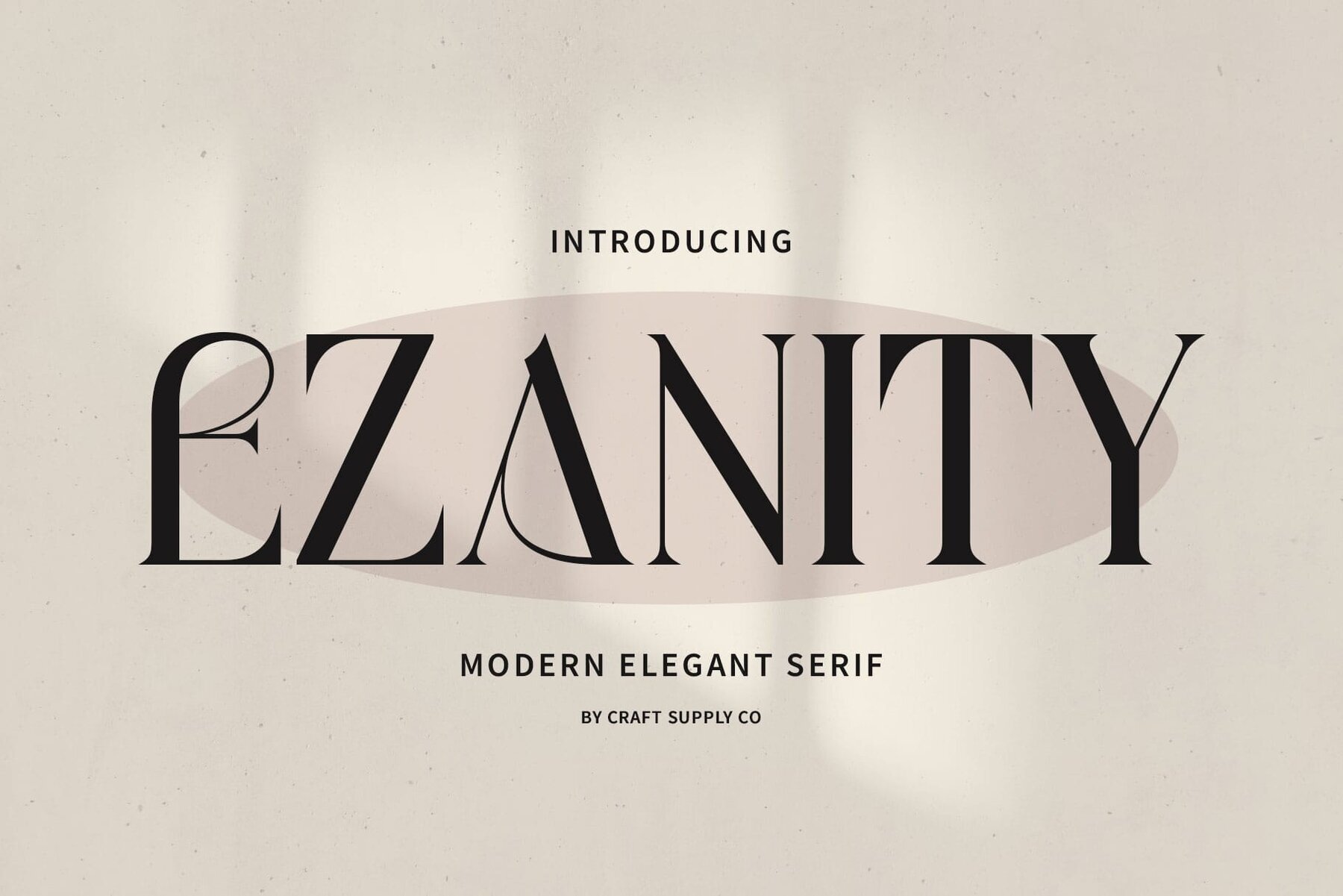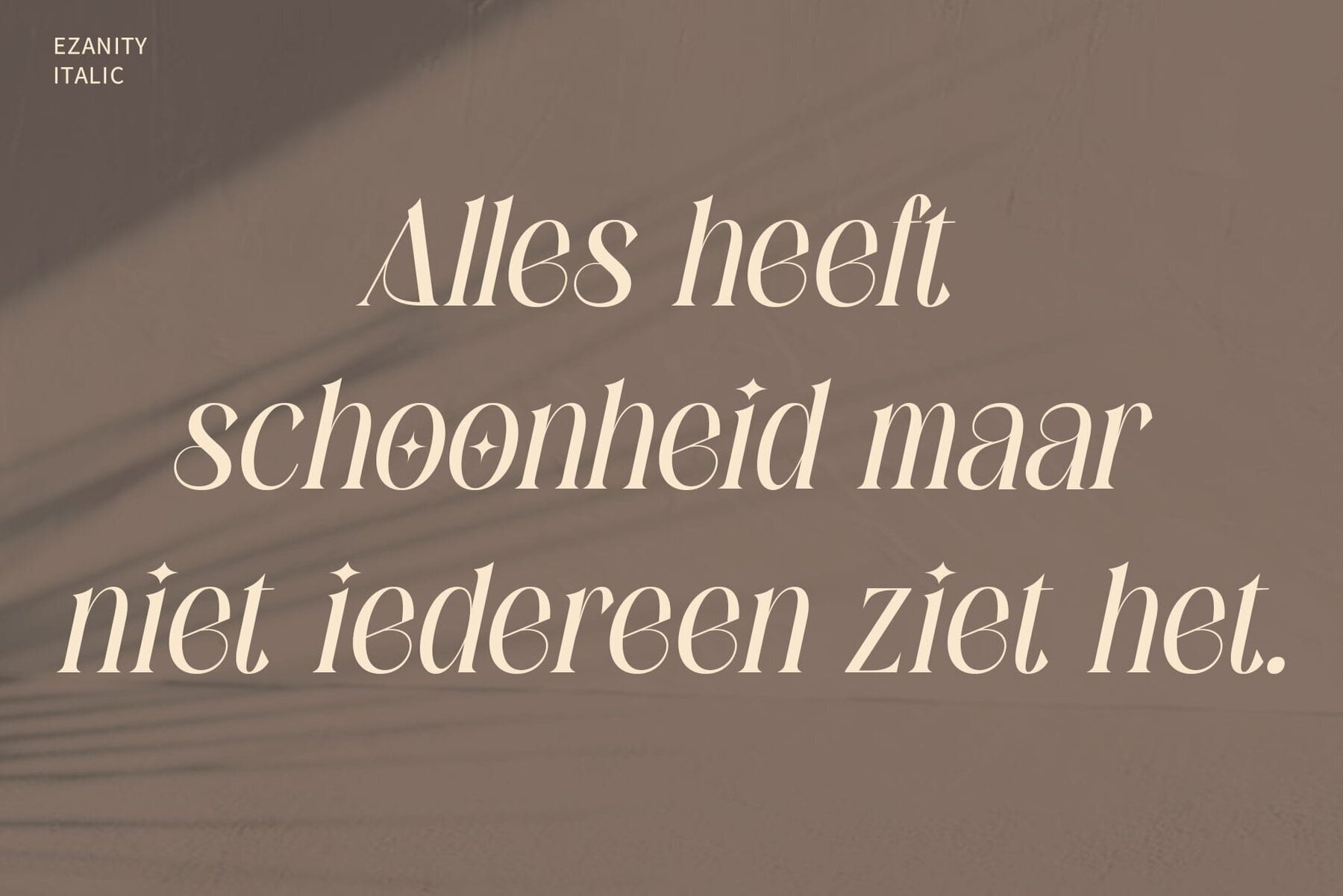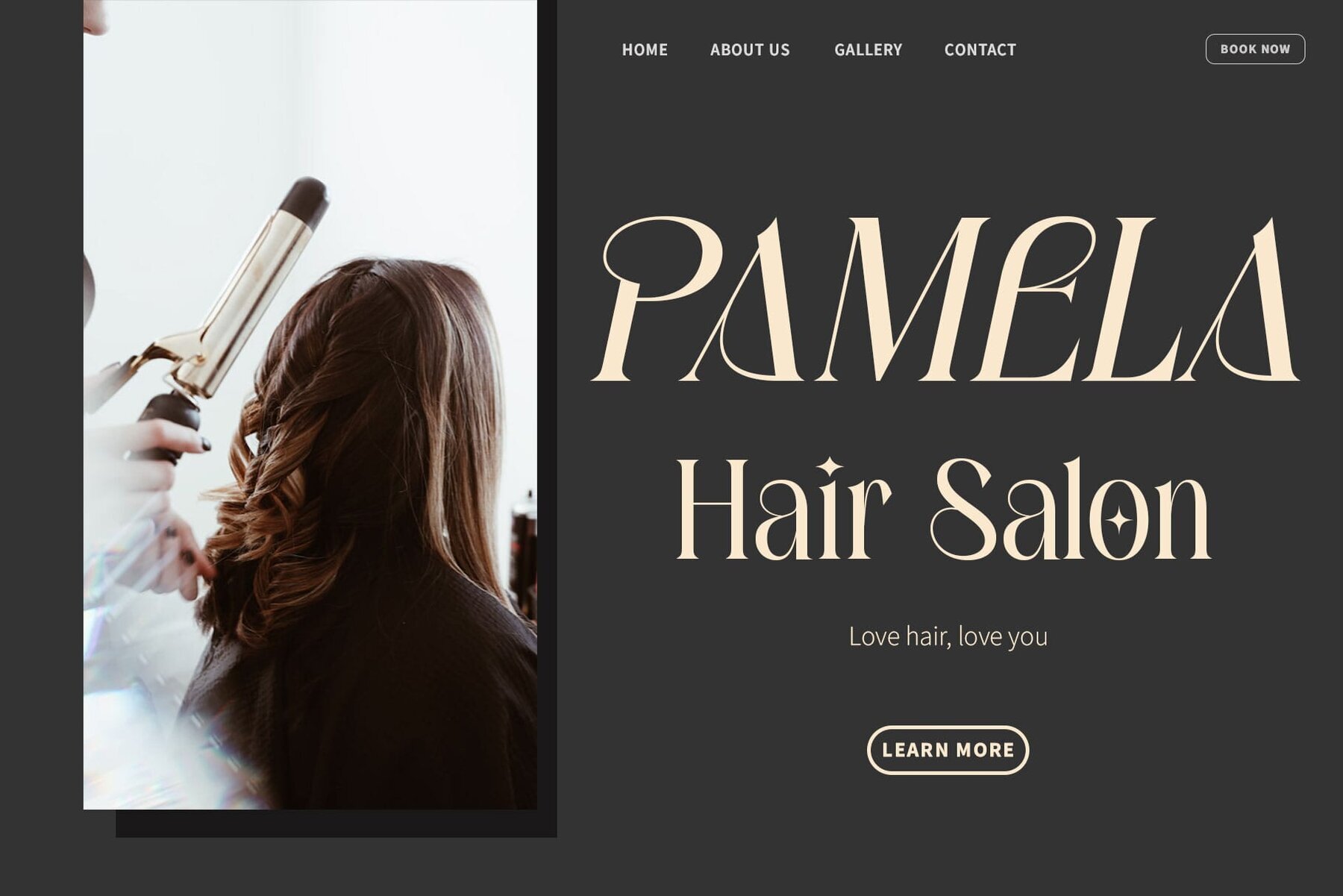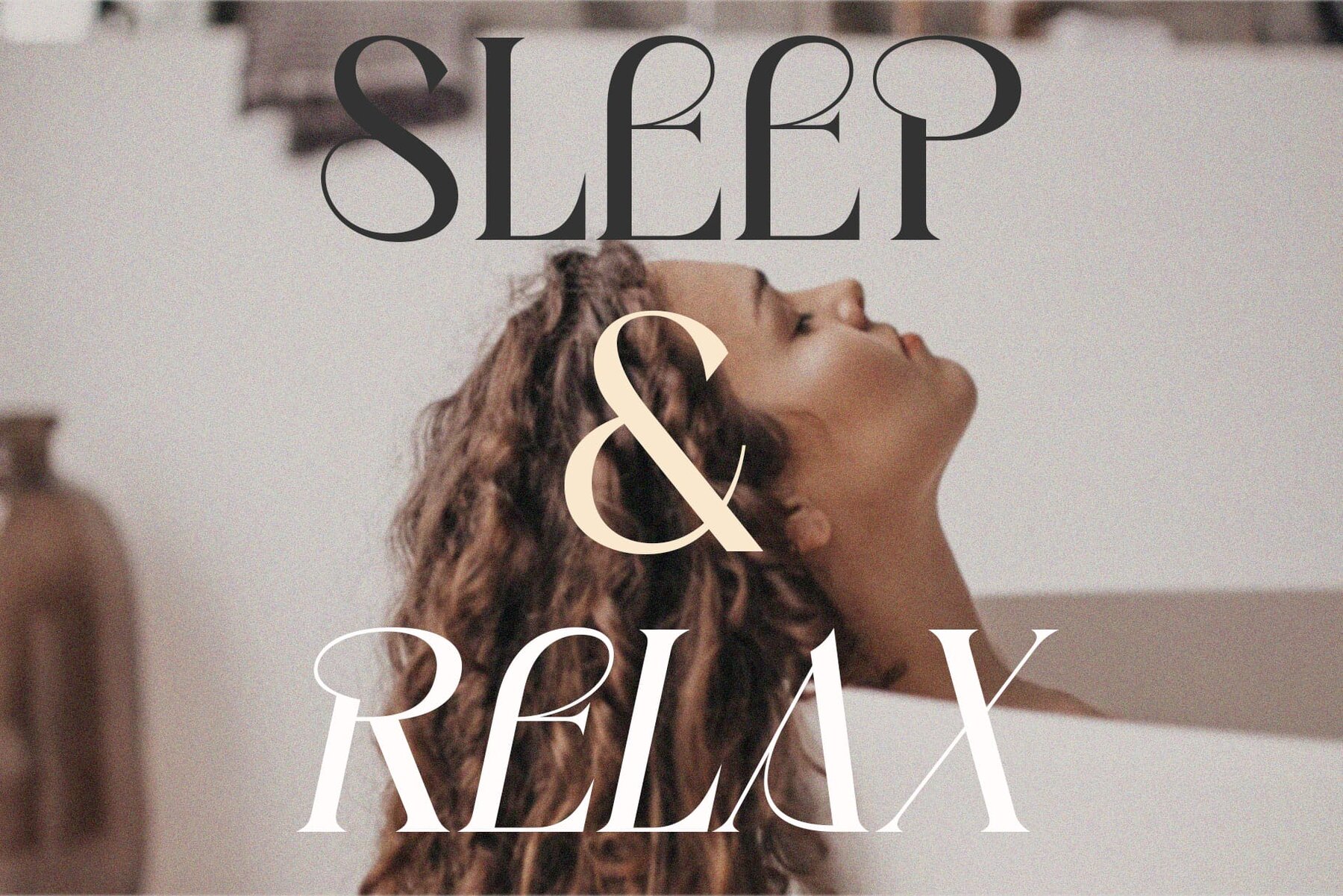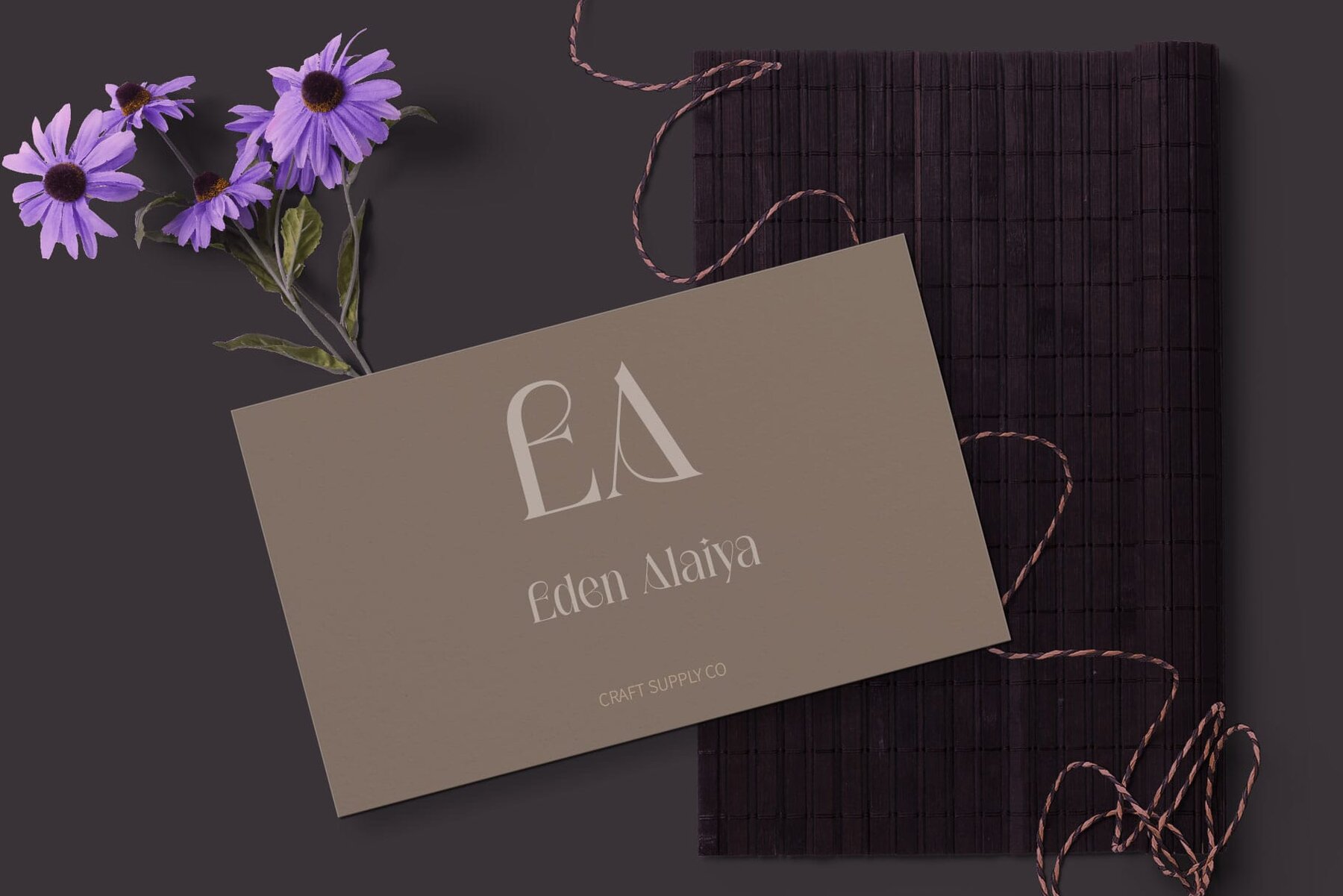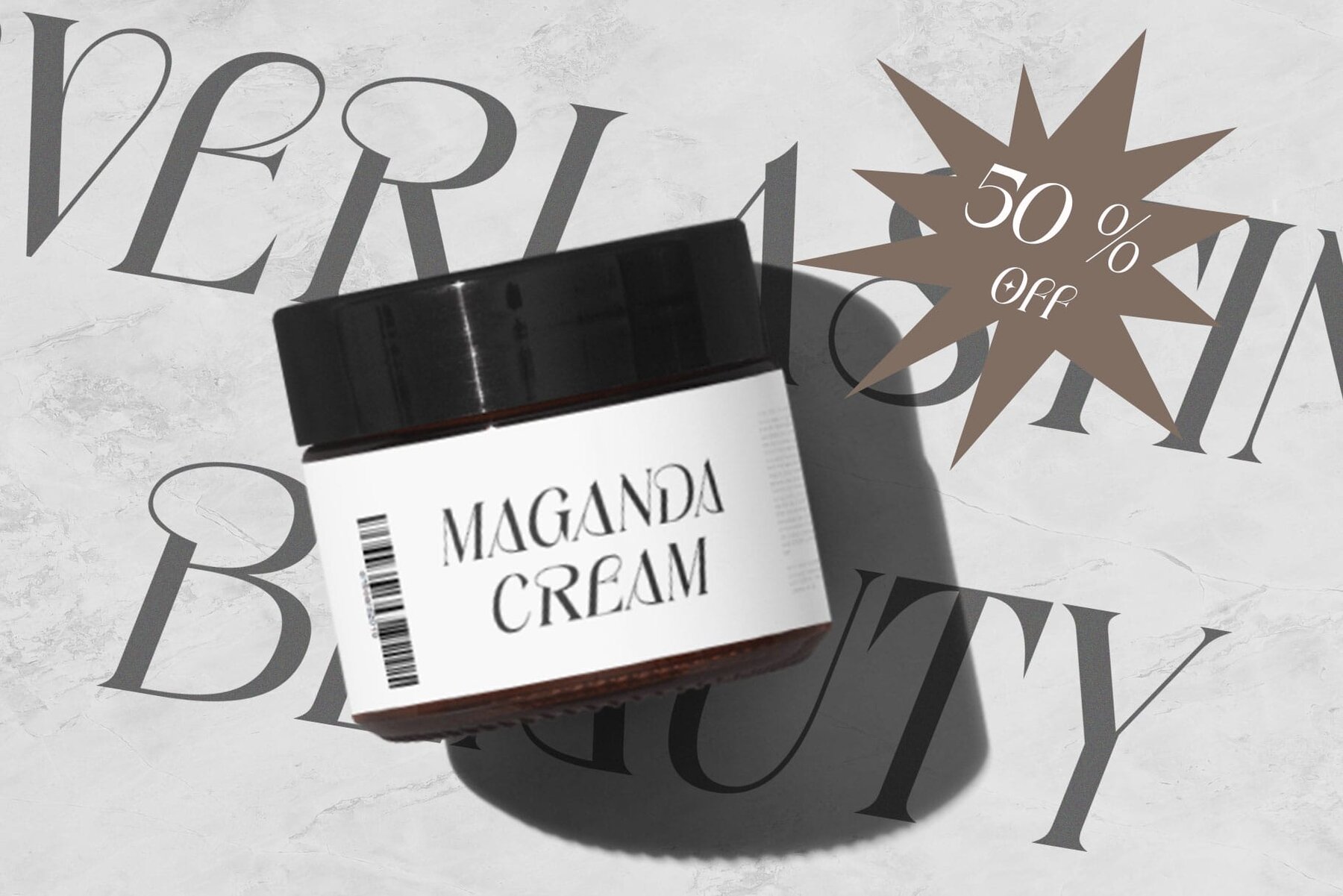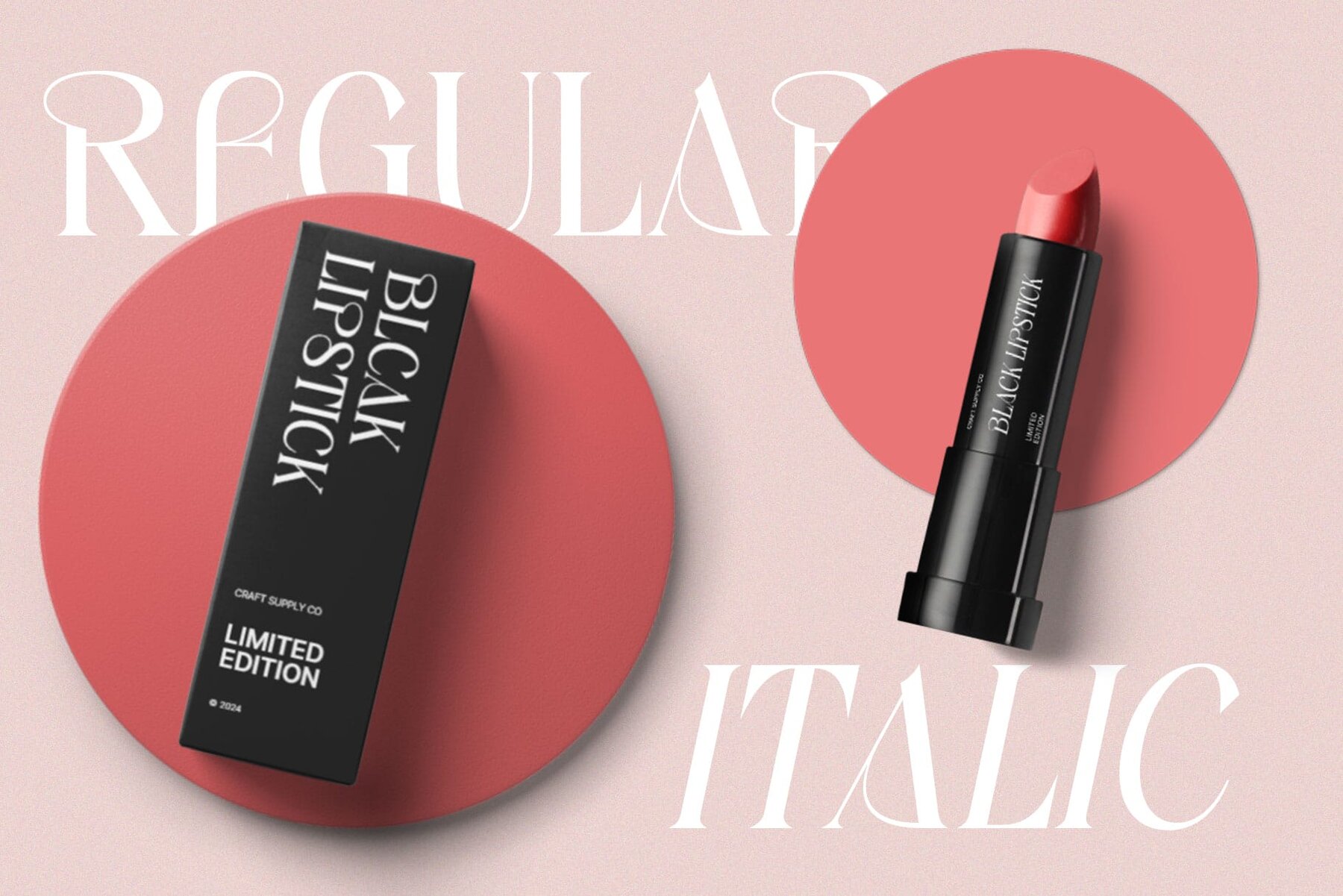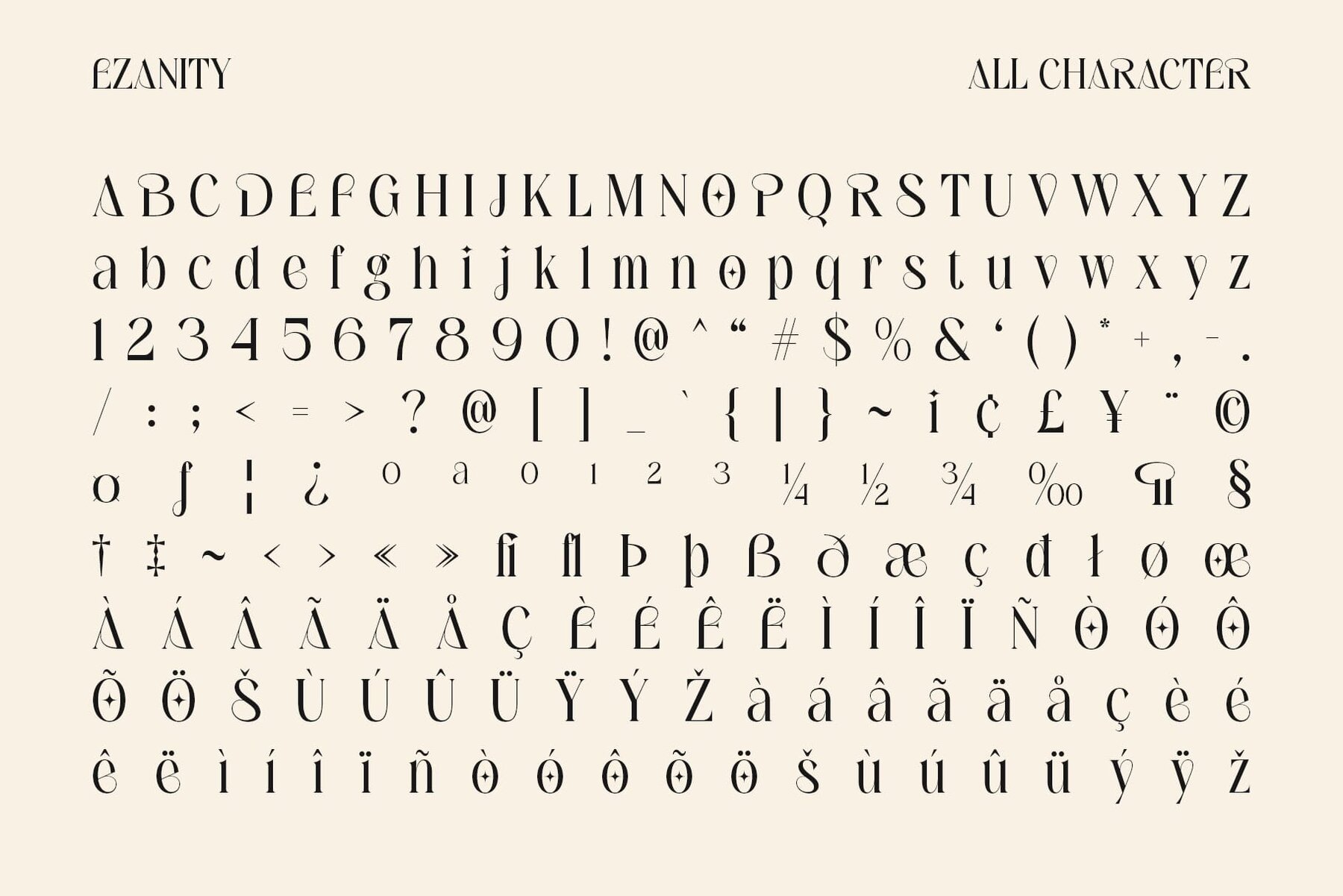
Ezanity Font
Ezanity is a serif font with a distinctive design, characterized by elegant vibes and intricate flows. Each letter exudes individuality, making it perfect for display purposes. Radiating an air of elegance, Ezanity captivates with its graceful curves and refined details. Its sophisticated demeanor elevates any display project, adding a touch of class and luxury. Tailored for display applications, Ezanity excels in various contexts, from branding to editorial design. Its distinctive shape and elegant aura ensure maximum impact and visual appeal. Beyond its aesthetic charm, Ezanity offers versatility and engagement. Whether used in print or digital media, its unique design elements capture attention and leave a lasting impression. Ezanity stands out as a symbol of unmatched elegance in serif typography. Its unique design features offer a versatile solution for display needs, leaving a lasting impression with its sophistication and charm. Step into the world of Ezanity and elevate your designs with its timeless allure. You can use this typeface without needing any specialized software. If you have any inquiries or need assistance, please feel free to contact us. We appreciate your support in enhancing your creative projects!Ezanity Font: Uniquely Elegant Serif
Elegant Aura with a Touch of Sophistication
Perfect for Display Needs
Versatile and Engaging
Unmatched Elegance